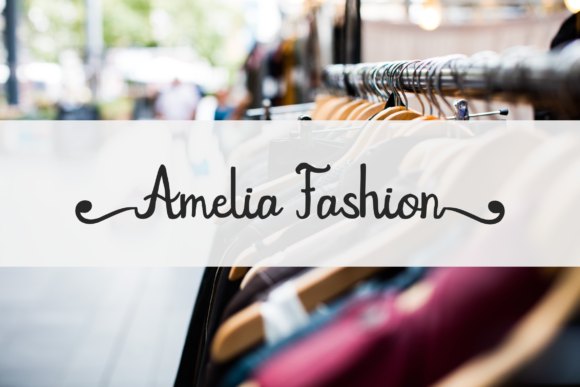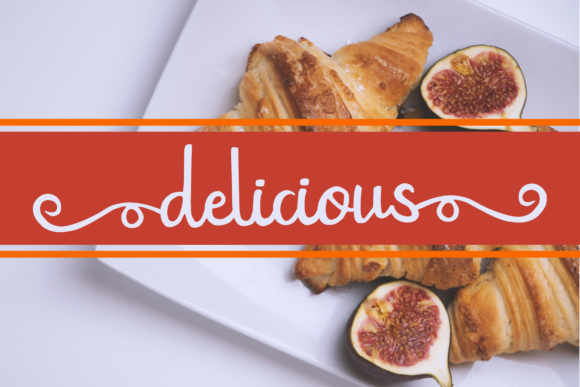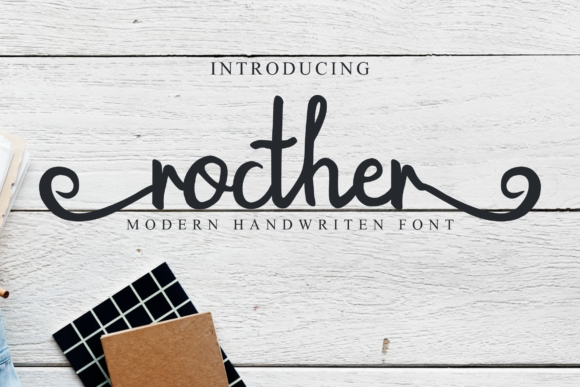
Rocther Script Font
The Rocther is an amazing brush script font. It was created with a medium thickness brush pen that will make your design look more beautiful and soft.
It’s perfect for magazines, business cards, watermarks, invitations, packaging, t-shirts, and all other designs that require beautiful and soft elements.